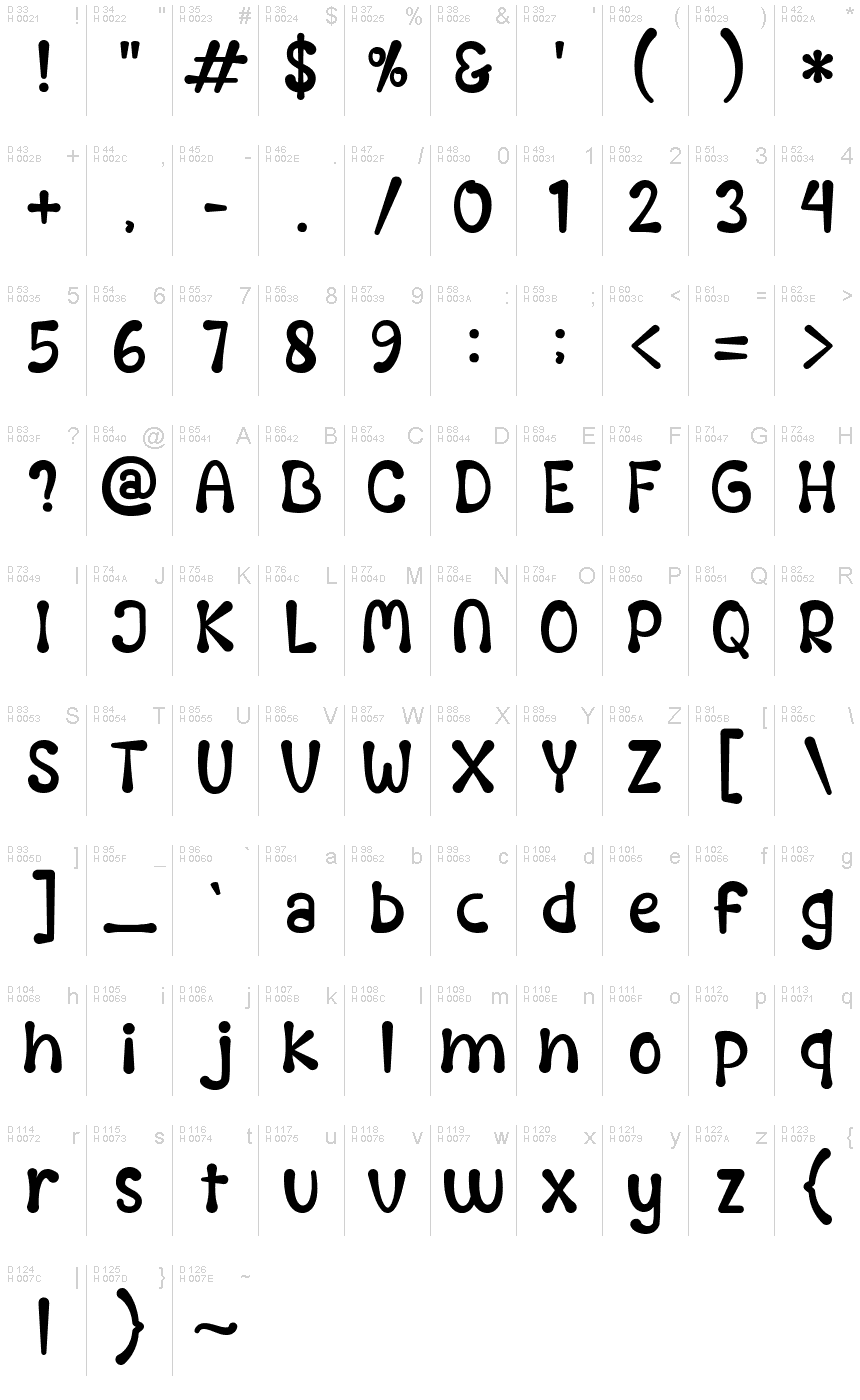
FAMOUS
FAMOUS, designed by AM Designs, is a captivating display font that brings a playful and charismatic touch to any project. With its charming cartoon style, this font is perfect for children's books, animated movies, and playful branding campaigns. The bold and vibrant letters of FAMOUS are sure to catch the eye and leave a lasting impression. Whether you're designing logos, posters, or packaging, this versatile font adds a dose of fun and excitement to every creative endeavor. Stand out from the crowd with FAMOUS and make your projects truly unforgettable.